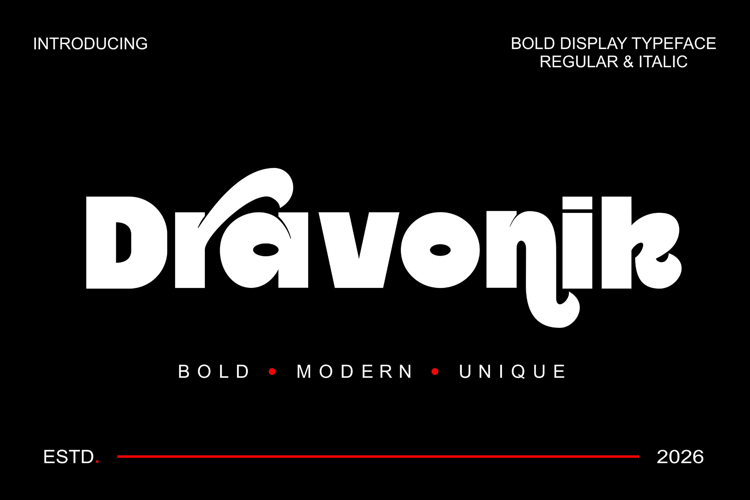
Dravonix | Bold Display Typeface
Introducing Dravonix, a bold display typeface designed with strong modern character, unique stylistic curves, and eye-catching visual impact. Built for creators who want typography that feels powerful, stylish, and contemporary, Dravonix combines clean geometric structures with expressive letterforms to create a distinctive display font suitable for modern branding and creative headlines.
Dravonix delivers a premium bold aesthetic inspired by futuristic typography, modern editorial layouts, luxury branding, fashion visuals, technology identity systems, and minimalist display design. The font is carefully crafted to maintain strong readability while still carrying a unique personality that instantly attracts attention.
With its thick bold construction and smooth modern curves, Dravonix becomes an ideal choice for projects requiring strong visual hierarchy and memorable typography. Whether used for logos, posters, magazine covers, branding presentations, social media graphics, website headers, packaging, advertising campaigns, or product visuals, this typeface brings modern confidence and stylish energy into every composition.
The distinctive letterforms create a unique visual rhythm, making titles feel dynamic and premium without losing clarity. The combination of bold proportions and modern stylistic details helps Dravonix stand out in both digital and print media.
Included Styles- Dravonix Regular
- Dravonix Italic
The Regular style offers strong modern display typography with balanced structure and clean geometry, while the Italic style introduces movement and dynamic elegance suitable for expressive compositions and futuristic branding.
Features- Uppercase Characters
- Lowercase Characters
- Numbers & Punctuation
- Stylistic Alternates
- Bold Display Style
- Modern Letterforms
- Unique Character Design
- Strong Visual Presence
- Clean Typography Structure
The bold display structure creates instant visual impact while the unique stylistic alternates provide additional creative flexibility for customized typography compositions. Designers can explore multiple visual directions while maintaining consistent branding aesthetics.
Dravonix was designed to perform beautifully in oversized headlines and premium branding layouts. The geometric balance and modern styling make it suitable for luxury aesthetics, minimalist compositions, futuristic themes, and bold editorial visuals.
Multilingual support expands creative possibilities across different languages, while punctuation and number characters allow complete typography systems for professional design projects.
The stylistic alternates add more personality and flexibility, making the typeface feel more dynamic and exclusive. These alternate characters help create customized wordmarks, unique titles, and expressive branding visuals with modern elegance.
Inspired by contemporary typography trends, futuristic visual culture, and modern creative direction, Dravonix transforms ordinary text into powerful display compositions with stylish confidence.
Suitable for creators looking for bold typography with modern personality and strong visual identity, Dravonix delivers premium display aesthetics for a wide range of contemporary creative projects.